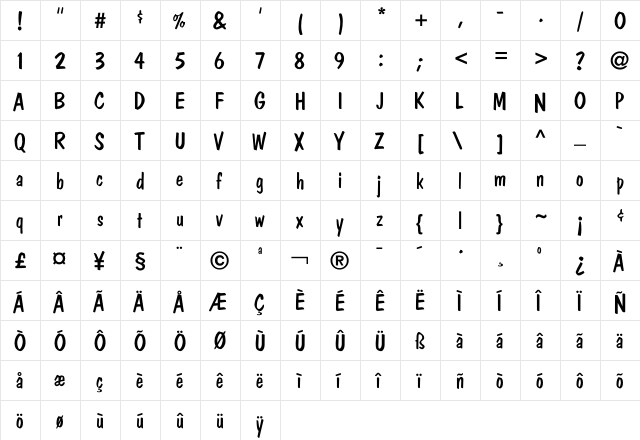
LHF Brough Superior Regular
| Foundry | John Studden for Letterhead Fonts |
| Designer | John Studden for Letterhead Fonts |
Design Context for LHF Brough Superior Typeface
LHF Brough Superior embraces imperfection — its rough, textured character adds raw authenticity to designs that want to feel lived-in and unconventional.
A strong fit for alternative music projects, graffiti-adjacent design, and anything that deliberately resists polish.
Pro Tip: Use LHF Brough Superior at larger sizes where the texture and irregularity of each letterform can be clearly seen — it loses its character at small sizes.